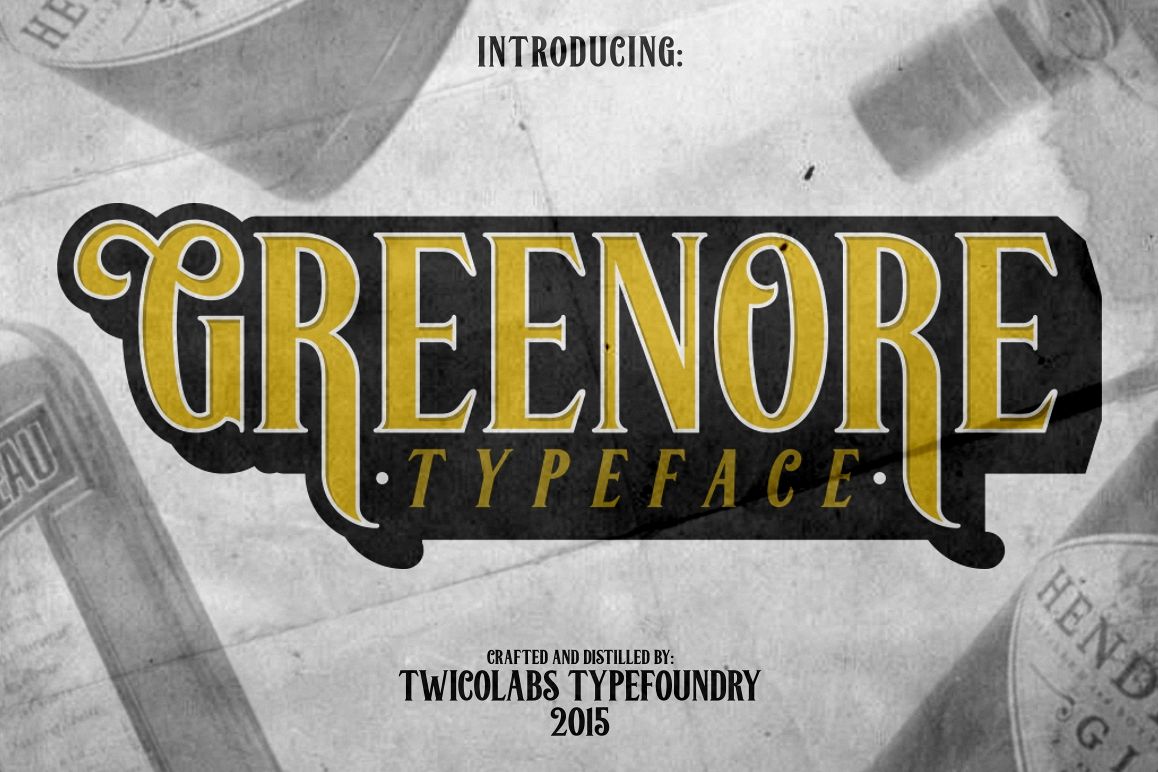
Greenore
Introducing Greenore, a typeface with classic feel that inspired from letters on old liquor and brewery packaging.
Carved with high attention to the details, giving this typeface a smooth yet crisp linework.
Suits best for headlines, vintage themed-designs, quotes,etc.
[PRO TIP]: Combine Greenore with thin-script typeface to get a classy/elegant look.
This font is so playful and easy to tweak, PLUS, packed with OpenType features and come in two style (Regular and Italic) to fulfil your drought at letter variations.